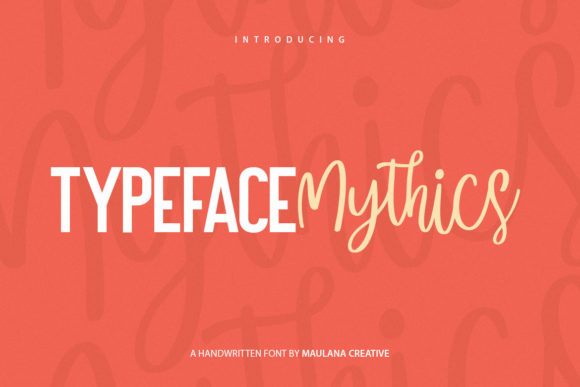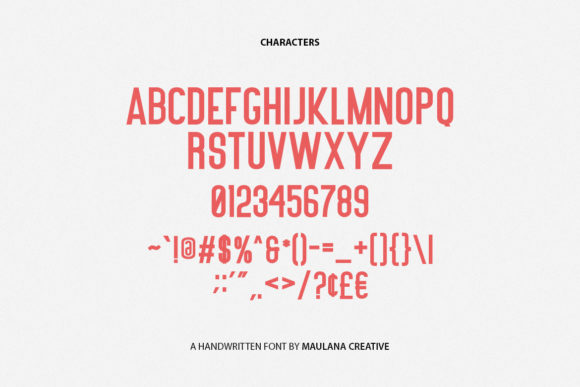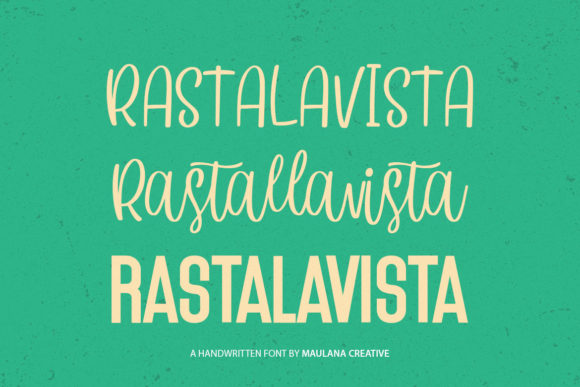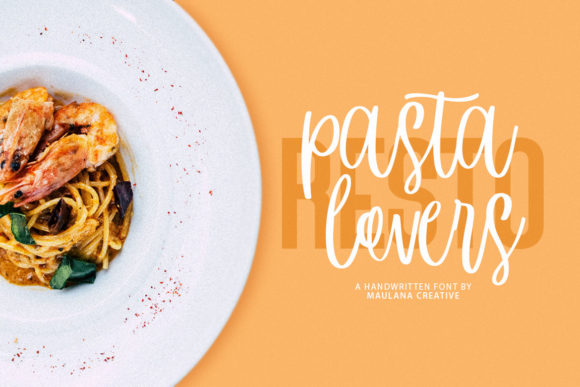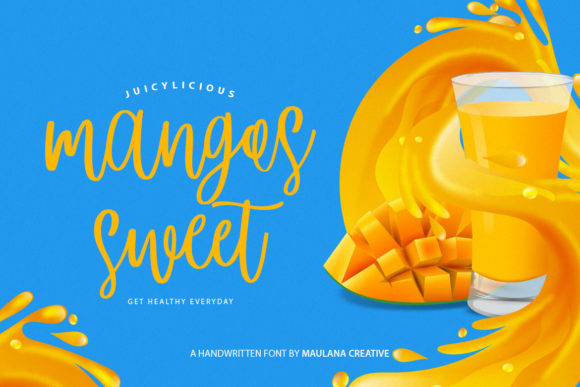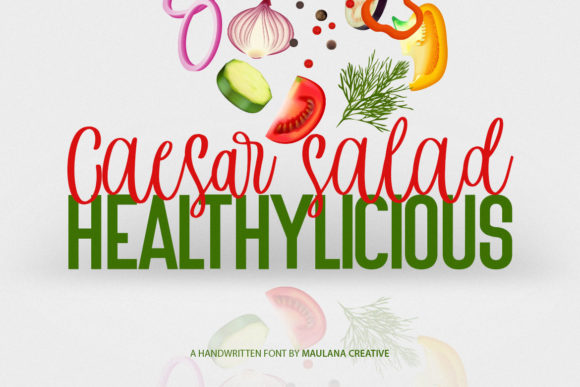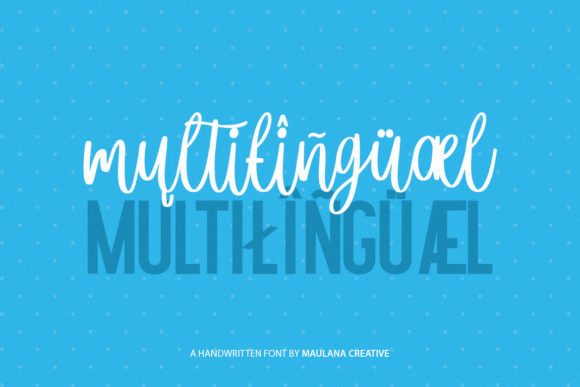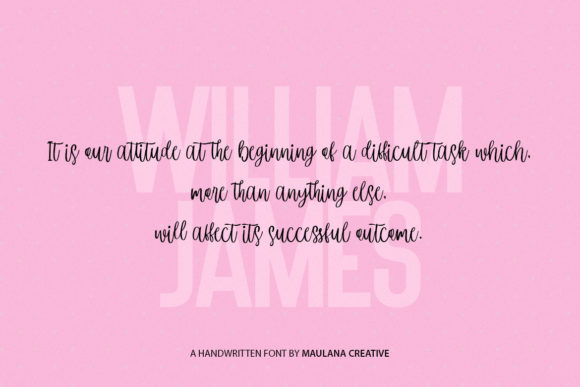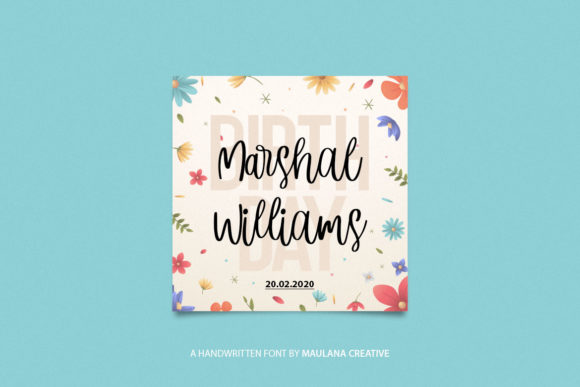
Mythics Font
Mythics duo is a match made in heaven, the simplicity of the sans serif perfectly complements the script’s style. Combining these two fonts on your next design will give your next design a stunning and modern feel.
This versatility means that this font can be used in a wide variety of applications – the only limit is your imagination!